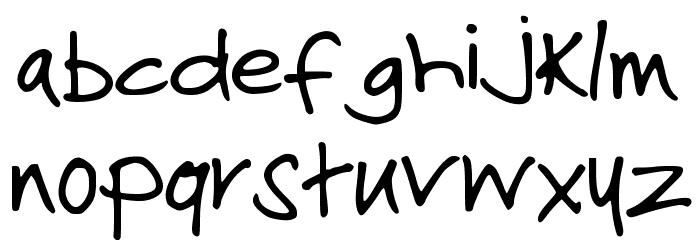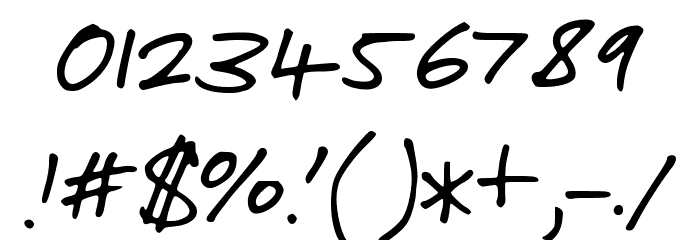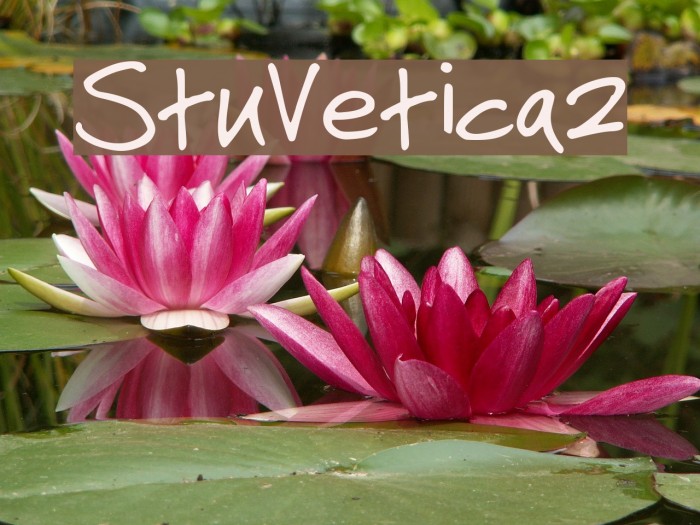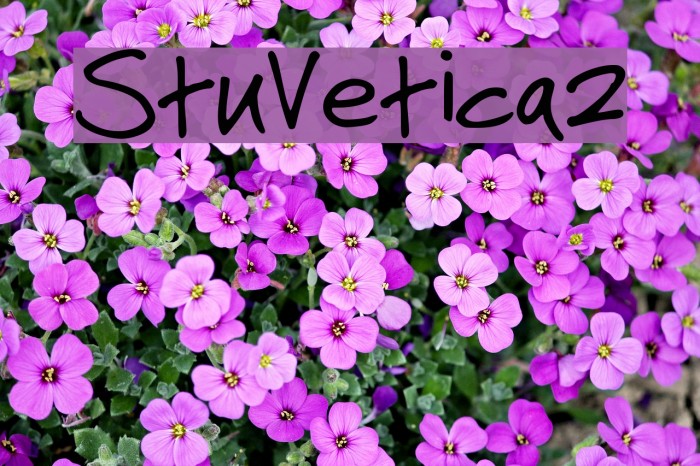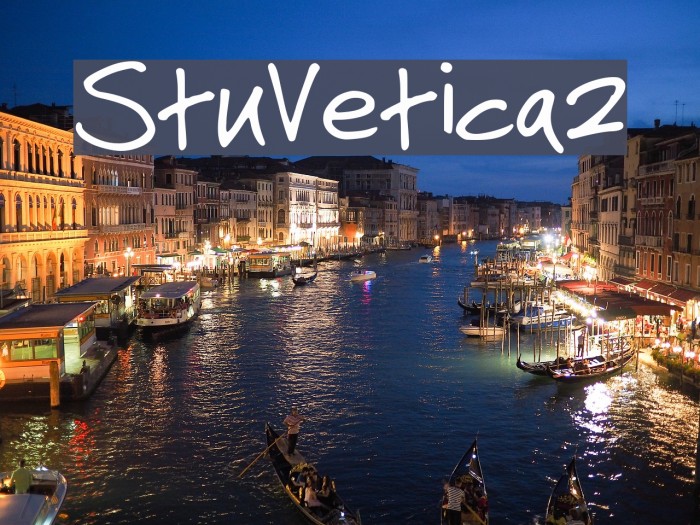
StuVetica2 Font
This font exhibits a casual, handwritten style with a playful and informal appearance. The characters are slightly irregular, giving it a personal and approachable feel. The strokes are consistent in thickness, contributing to a uniform look despite the informal style. The uppercase letters are bold and prominent, while the lowercase letters maintain a similar weight, ensuring readability. The numerals and special characters are crafted with the same playful touch, making them blend seamlessly with the alphabetic characters. Overall, this font is ideal for projects that require a friendly and informal tone.
A casual, handwritten font with a playful and informal style.
- Proposed Projects: Ideal for greeting cards, personal blogs, children's books, and informal branding.
- Overall Style: Casual
- Use Case: Headlines, Informal text, Personal projects